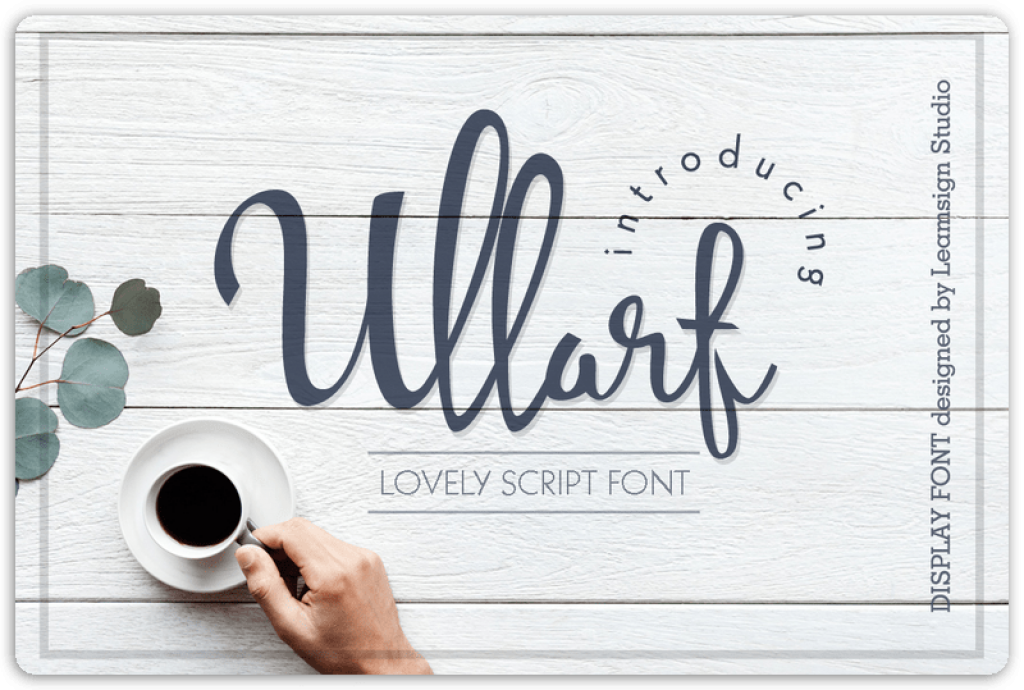
is a script font by that is perfect for branding, headers, product packaging, wedding invites, card and many which needs an elegant touch. Until January 21, 2019, you can download Ullarf font from free with a commercial license.